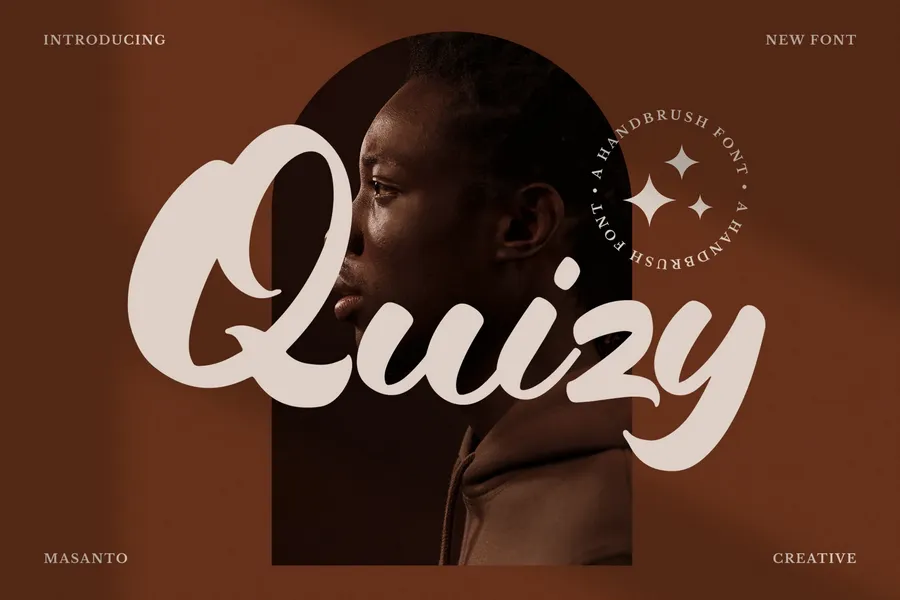
Quizy – Script Typeface with Brush Style
Quizy is a script typeface with a brush-style appearance, featuring bold strokes and natural curves. This font is suitable for use in branding, posters, apparel design, social media graphics, and packaging. Its expressive and hand-drawn look gives it a strong personality, ideal for creative and dynamic design projects. The font includes uppercase and lowercase letters, numerals and punctuation.
Ligature & Stylistic alternate